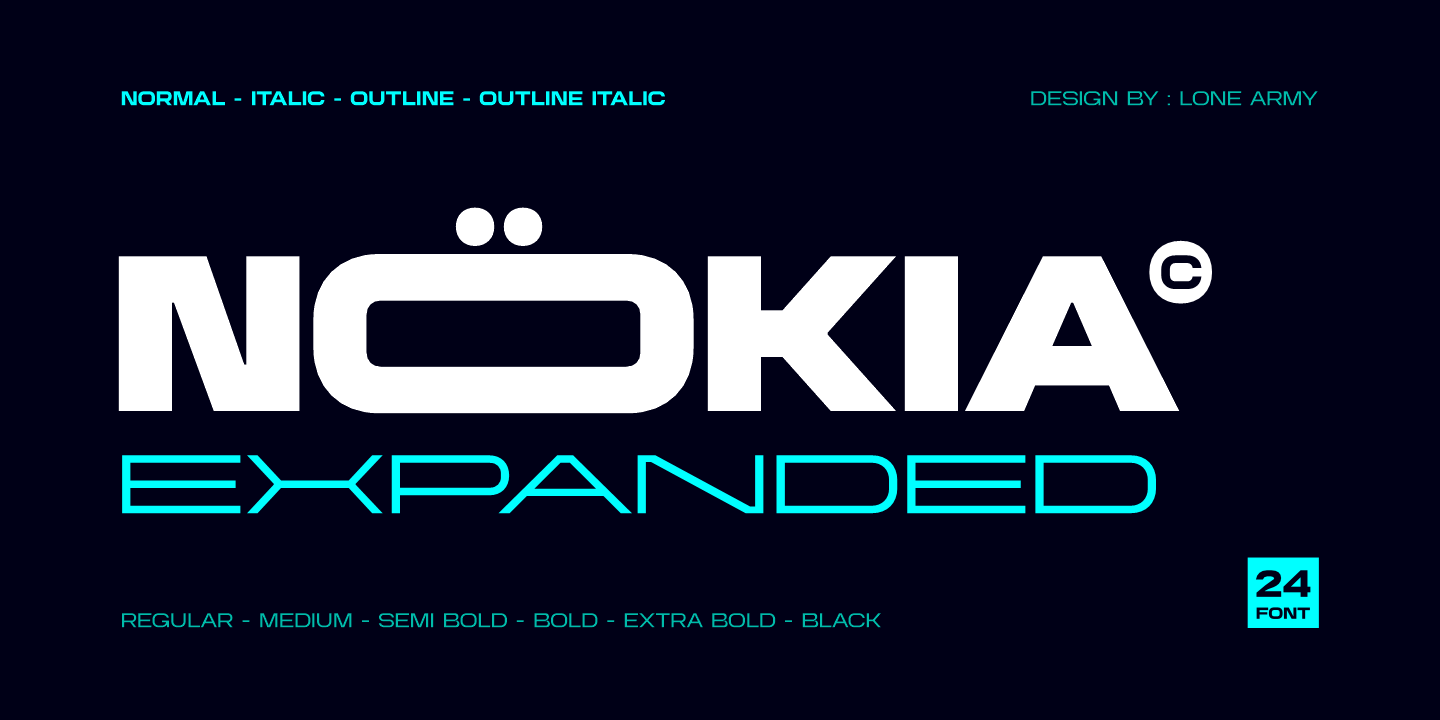
Nokia Expanded Font is perfect for telecommunications company branding, mobile technology marketing, digital communication service logos, wireless network infrastructure advertising, mobile app interface design, technology conference presentations, cellular service provider signage, digital connectivity campaigns, mobile device packaging, and comprehensive telecommunications documentation. Its authoritative tech character makes it ideal for projects requiring telecommunications expertise and mobile technology authenticity.
What makes Nokia Expanded Font exciting is its commanding embodiment of telecommunications innovation and mobile connectivity with expanded letterforms and technology-inspired characteristics that capture the essence of digital communication and wireless excellence. The font features wide proportions, tech-optimized details, and systematic character construction that create authentic telecommunications atmosphere and mobile appeal. Its reliable personality brings credibility and technological authority to contemporary designs while maintaining the clarity essential for digital communications and technology presentations. The carefully crafted expanded elements ensure maximum visibility while preserving the distinctive character that embodies the essence of mobile innovation and telecommunications excellence.
Nokia Expanded Font comes in multiple technological variations including Light, Regular, Medium, Bold, and Wide styles. Each family member maintains the distinctive telecommunications character while offering comprehensive flexibility for mobile typography and technology brand system development. The complete font family includes alternate characters, tech symbols, and telecommunications decorative elements that provide extensive tools for creating immersive mobile design experiences and authentic telecommunications brand storytelling.
Whether you're developing telecommunications brands, mobile technology companies, or digital connectivity projects, Nokia Expanded Font Free Download provides the technological authority needed to communicate with mobile users and telecommunications professionals who appreciate wireless innovation and digital connectivity excellence. The font's expanded appeal resonates with tech professionals, mobile developers, and telecommunications experts seeking authentic mobile credibility and wireless sophistication. Its comprehensive character set includes telecommunications symbols and mobile marks, making it perfect for creating complete mobile brand systems and memorable telecommunications storytelling across diverse technology applications and connectivity-focused design projects that celebrate mobile innovation and telecommunications excellence.